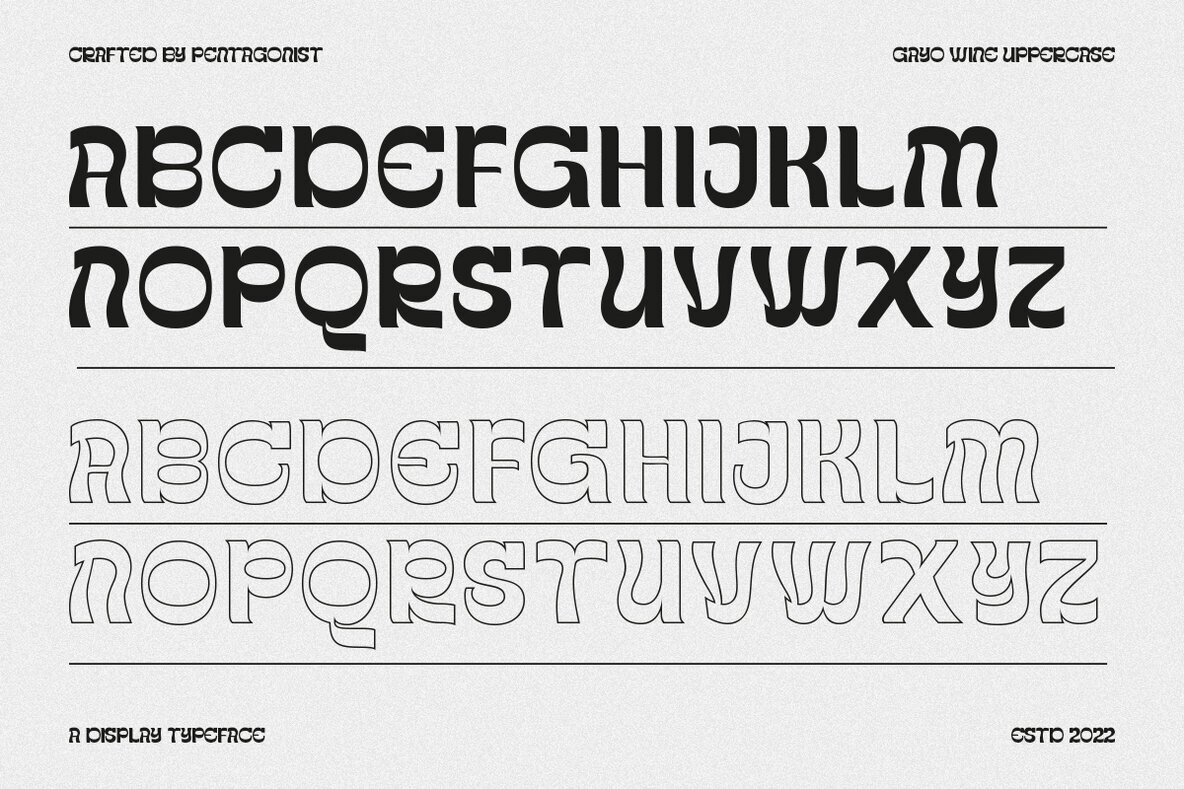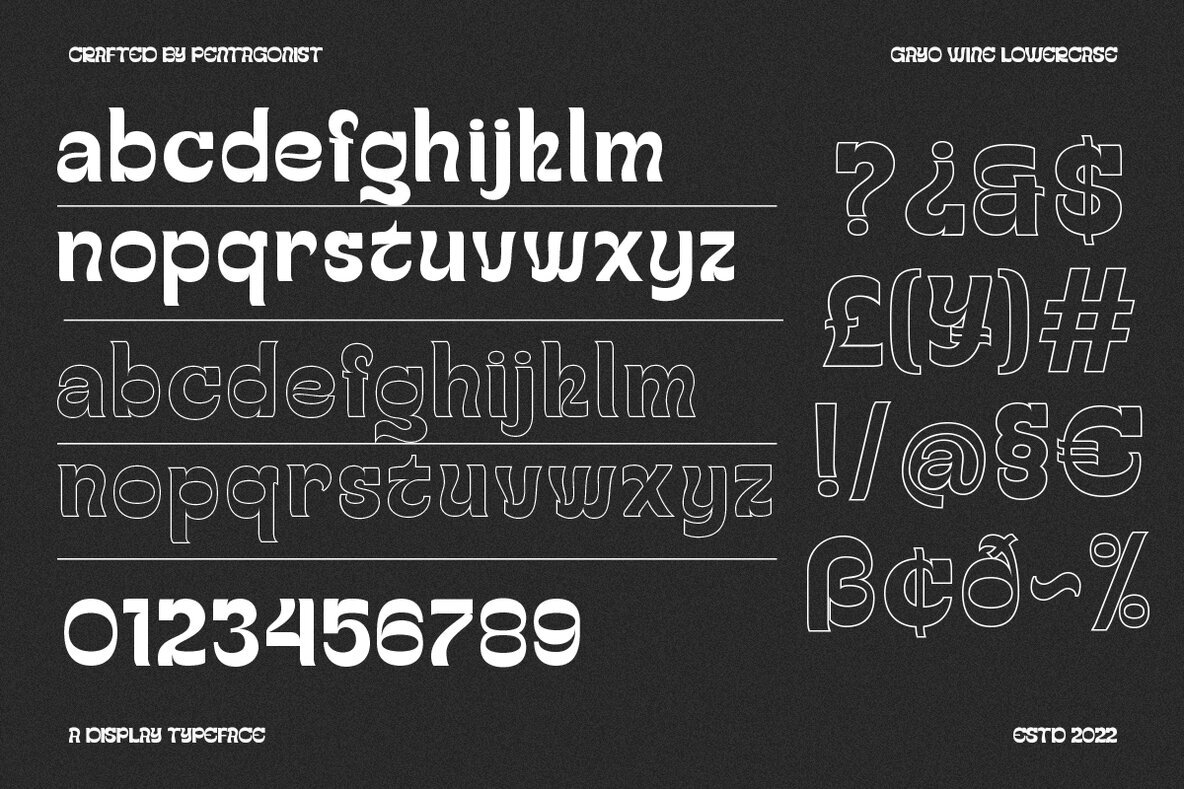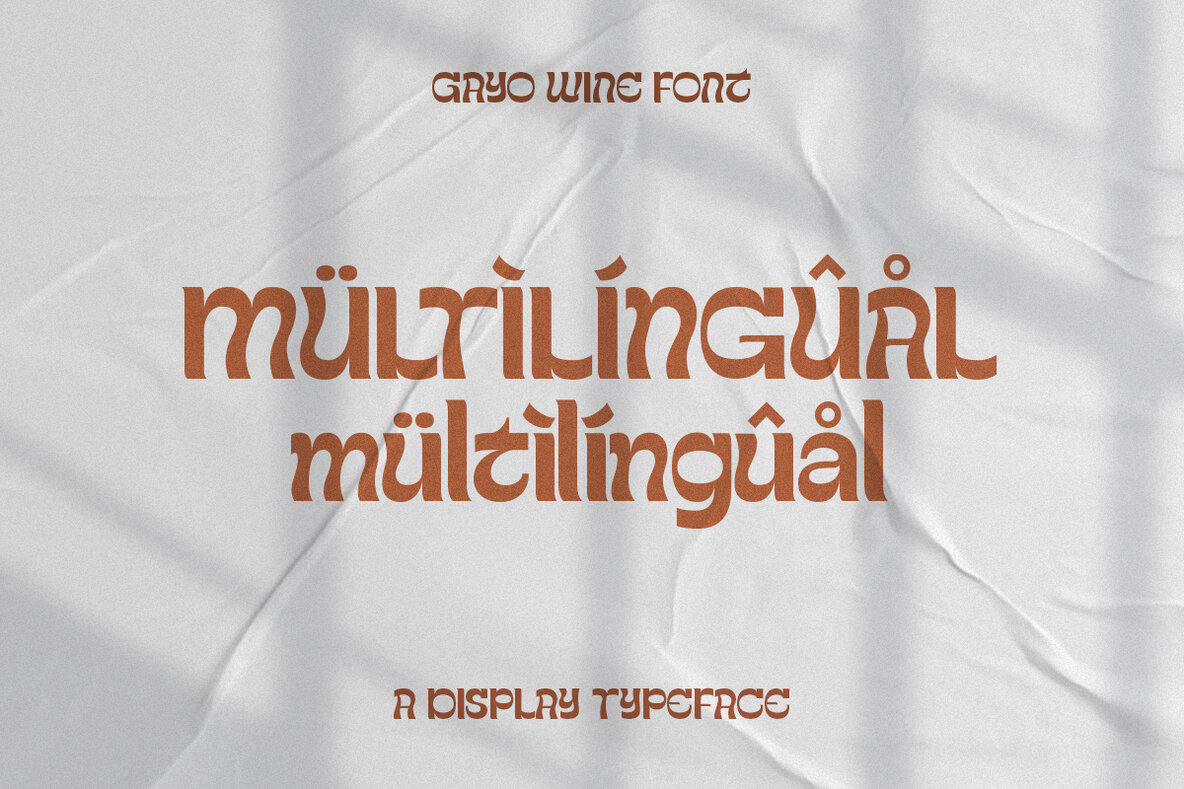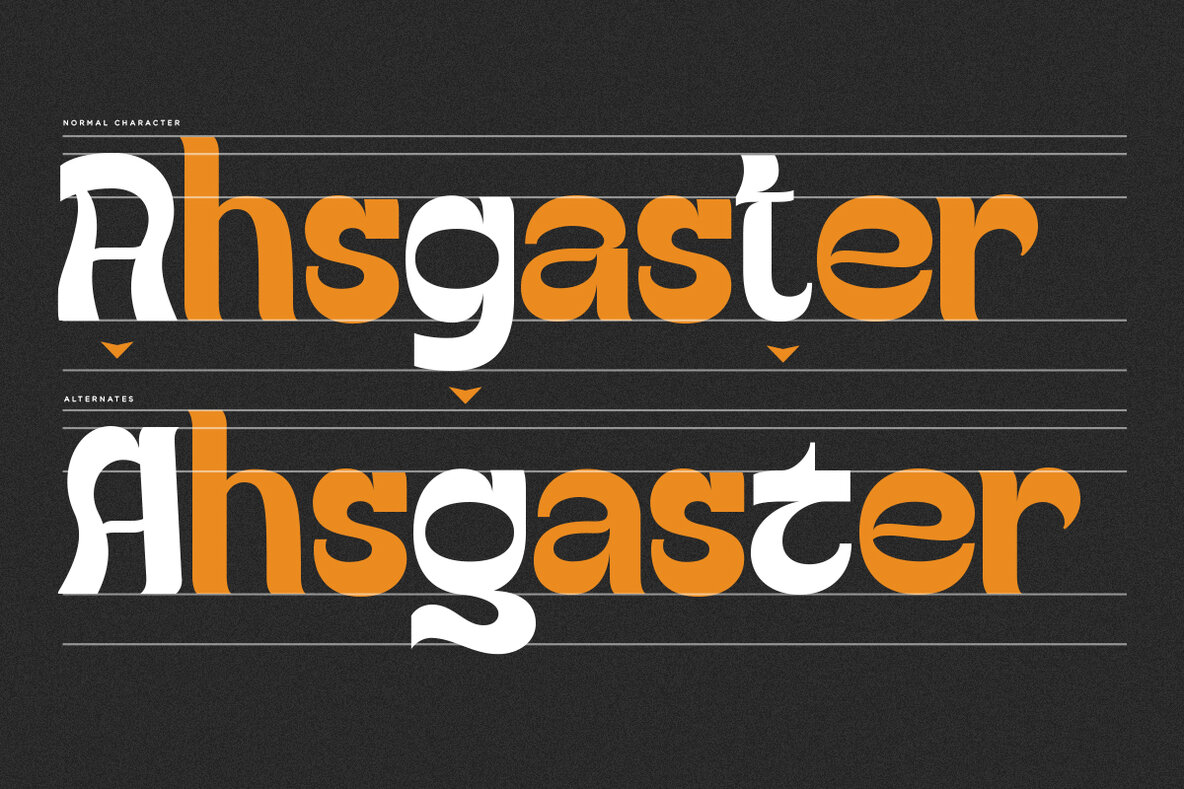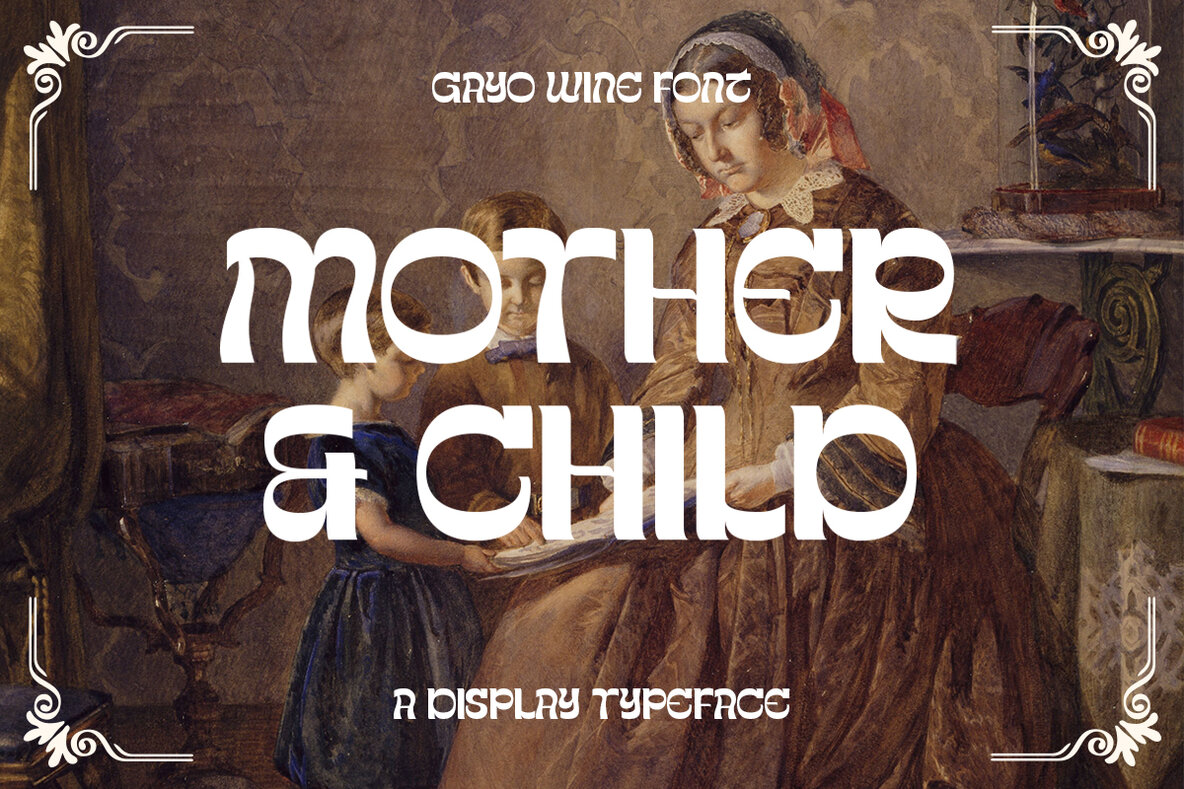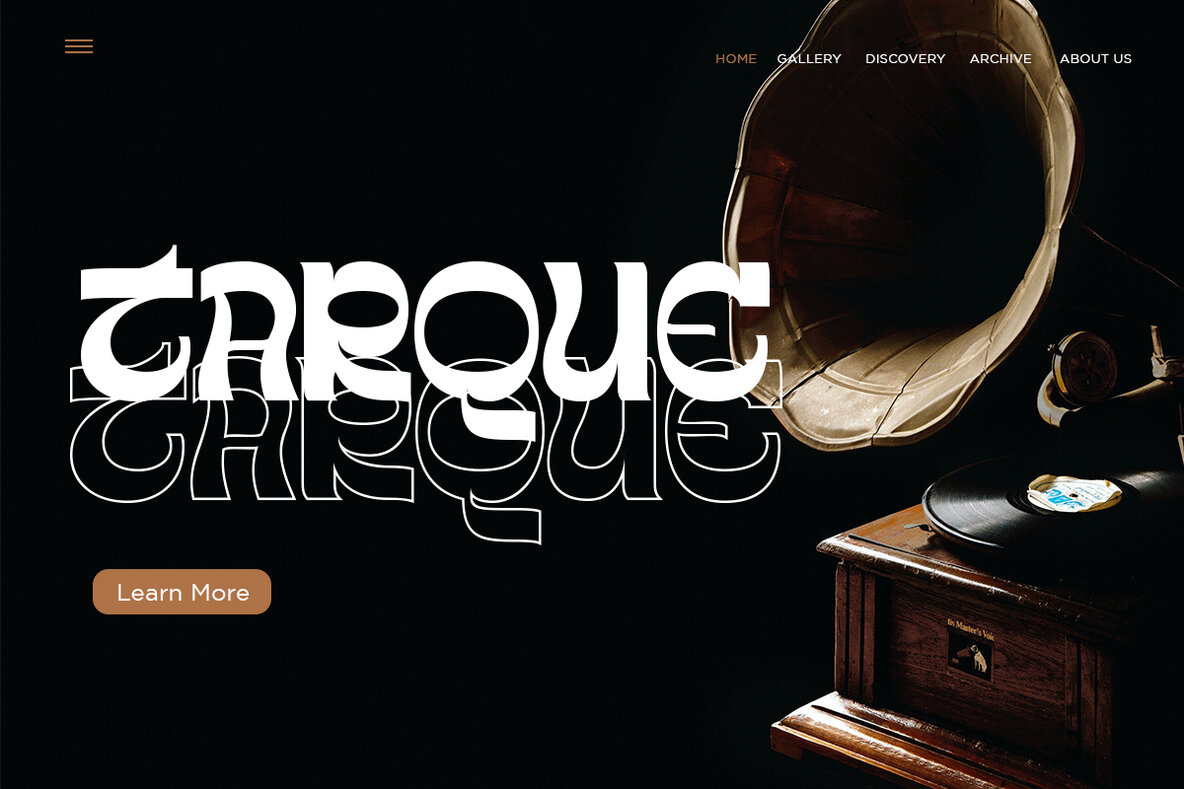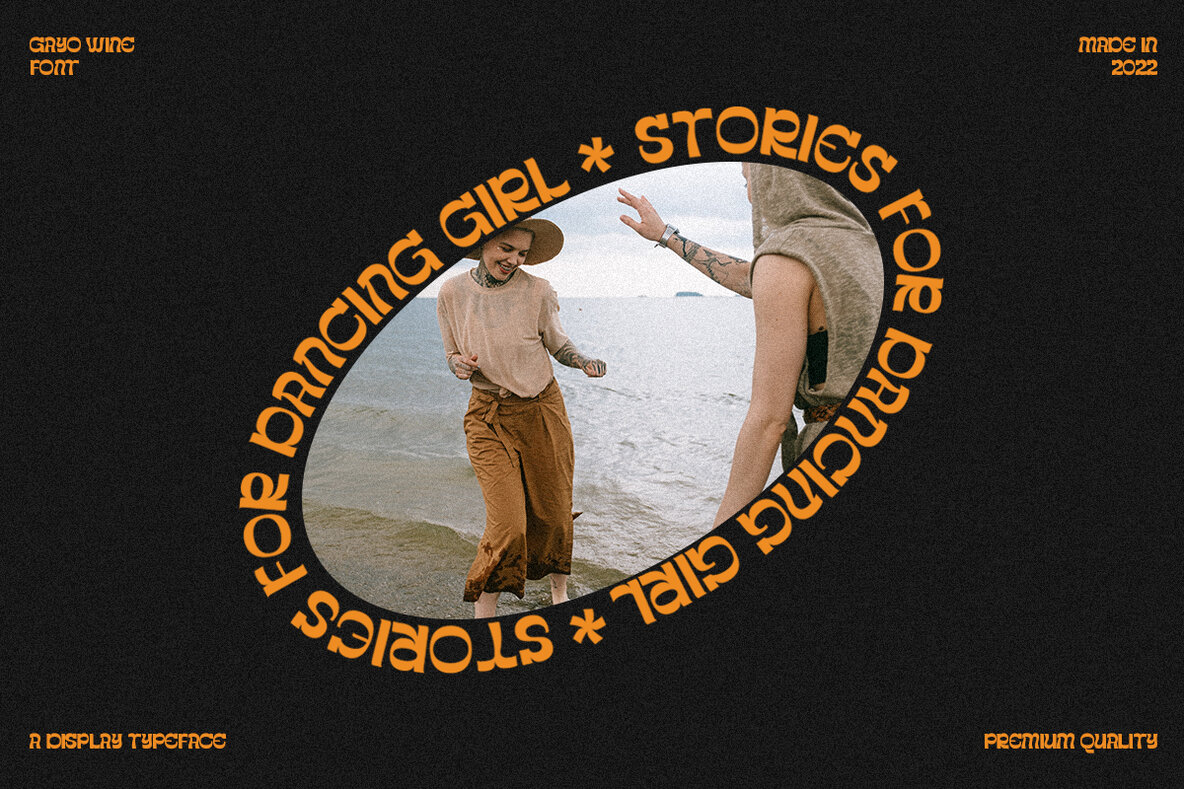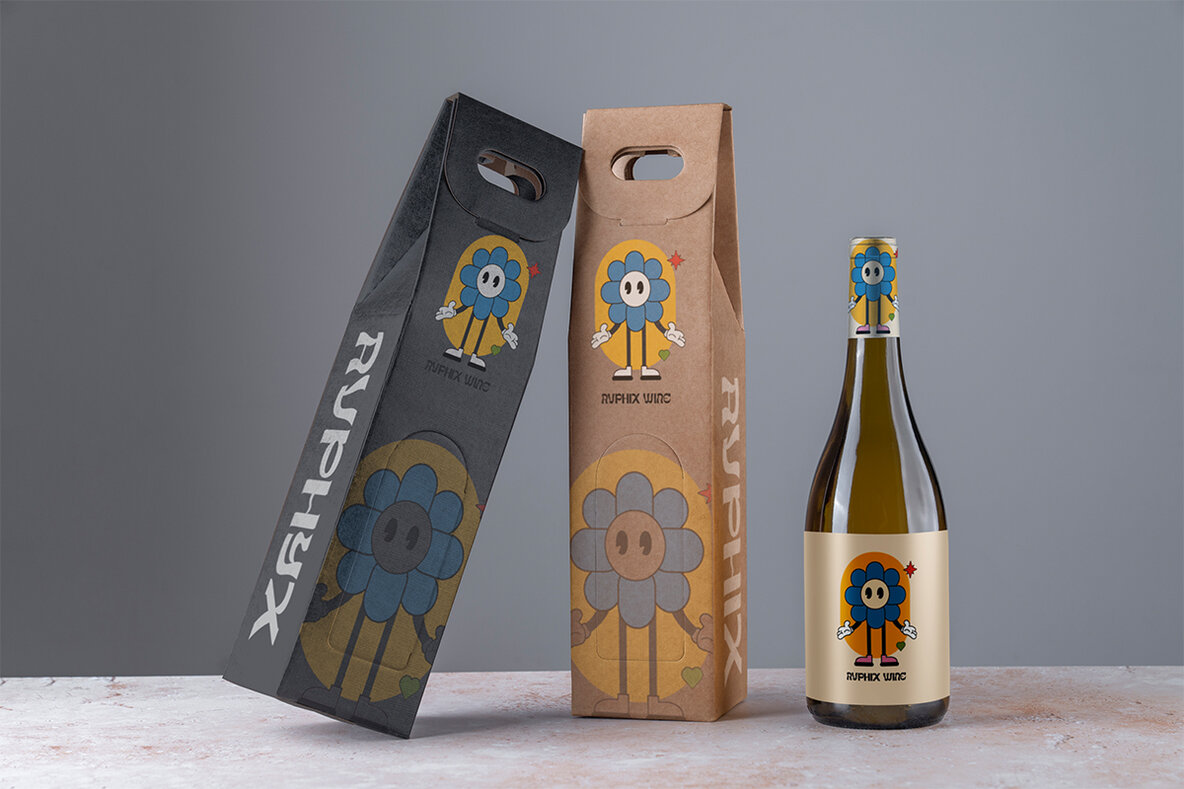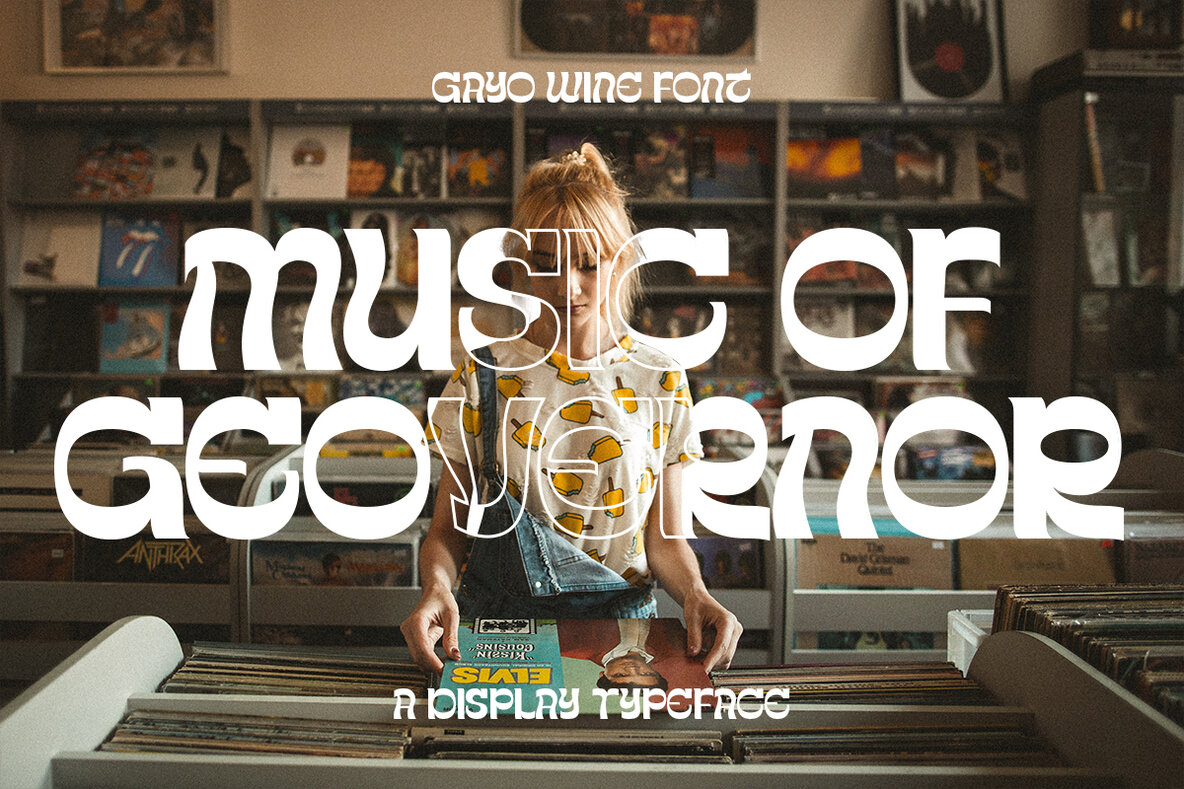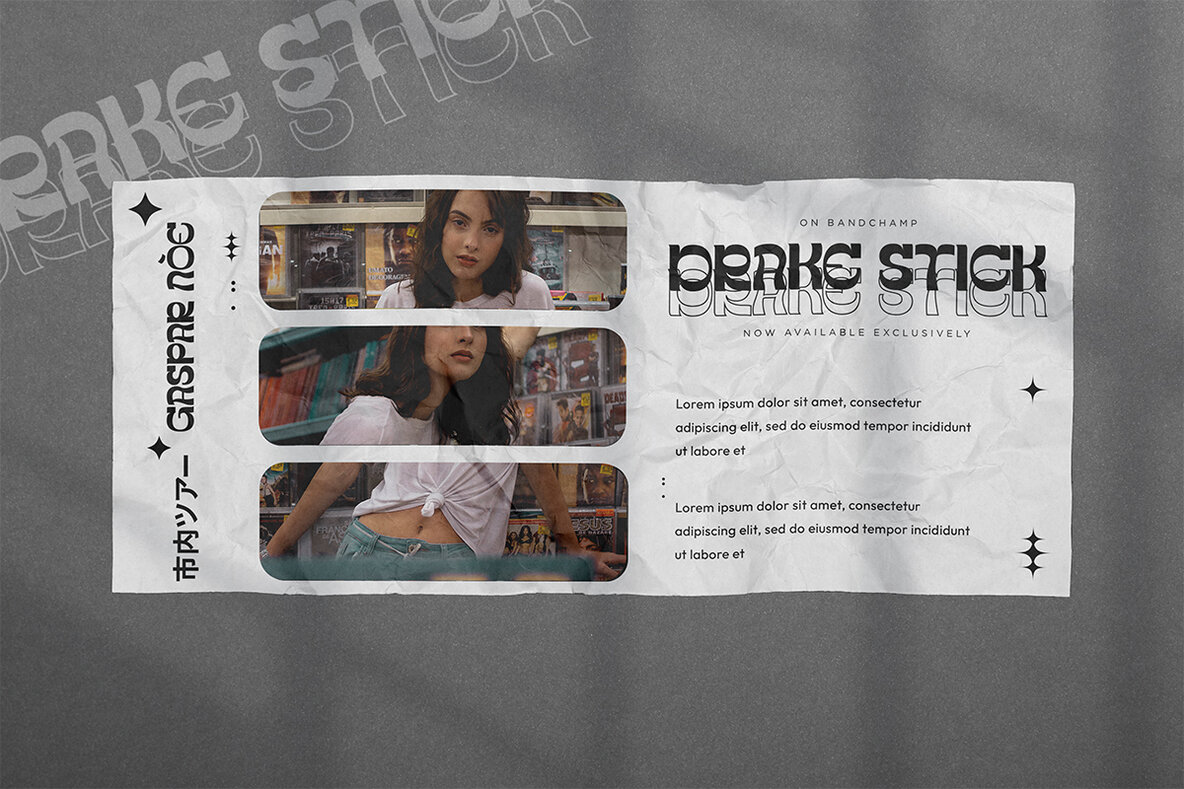
Gayo Wine Font
Gayo Wine by Pentagonistudio is a distinctive display typeface that finds its roots in the retro and vintage aesthetic. Perfect for those looking to evoke a sense of nostalgia in their designs, Gayo Wine delivers a unique flair. Designed for flexibility, Gayo Wine is compatible with a range of projects but be aware of specific licensing restrictions. Ensure compliance by reviewing the included FAQs regarding licensing terms for personal and professional use.Gayo Wine: Fancy Display Typeface with Retro Charm